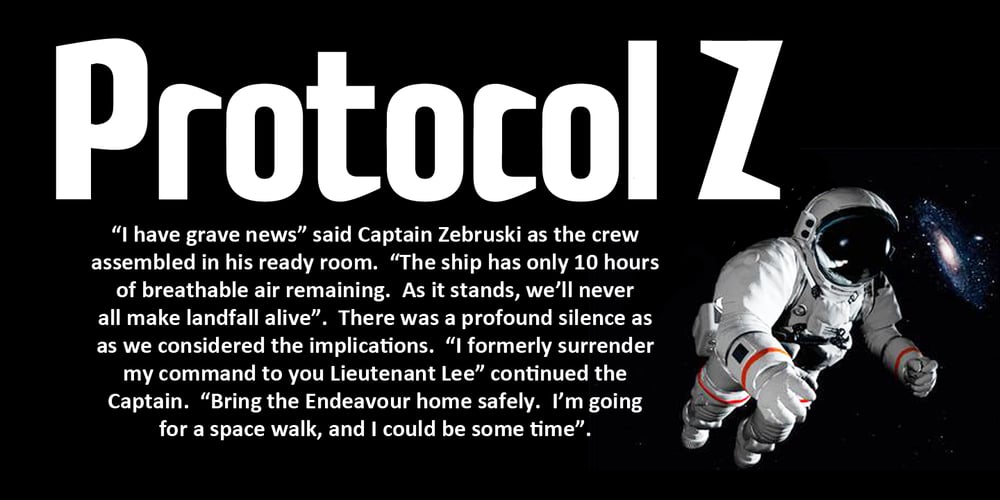
Cybernaut Font Family was designed by Keith Tricker and published by Studio K. Cybernaut contains 2 styles and family package options. Cybernaut is a bold, distinctive display font with a futuristic feel. It is ideal for all branding, advertising and publishing projects, and particularly well suited to science and science-fiction based applications. It boldly goes where no font has gone before!